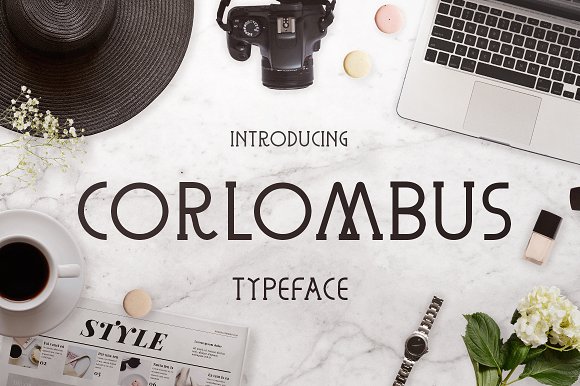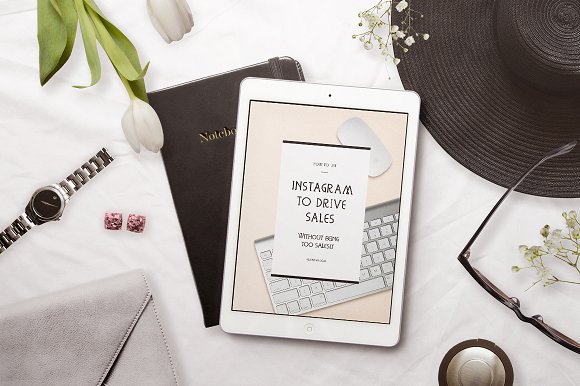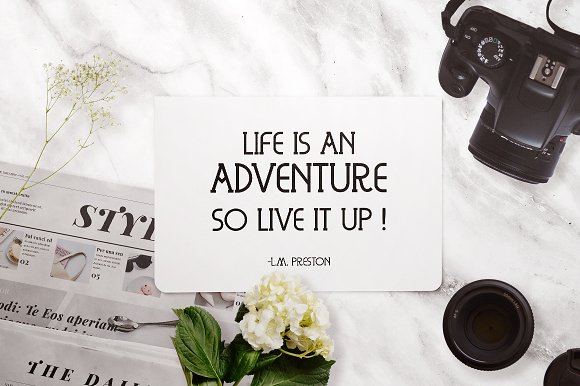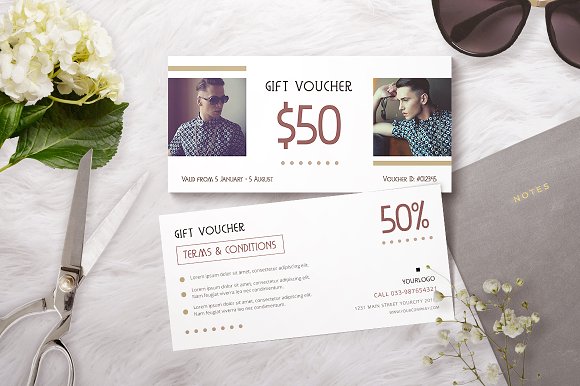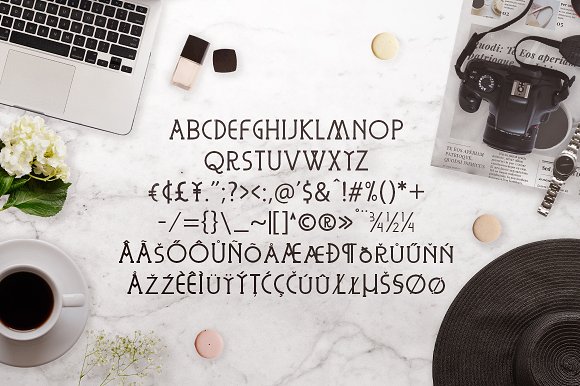
Corlombus Font
Corlombus is a slab serif typeface tribute to Christopher Colombus. This font are includes caps and lowercases and Central europe and Western glyphs the characters styles are slim but strong. The fonts are suitable for projects like display, headline, movie title, logo, branding, poster, quotes, editorials or anything you can come up with.